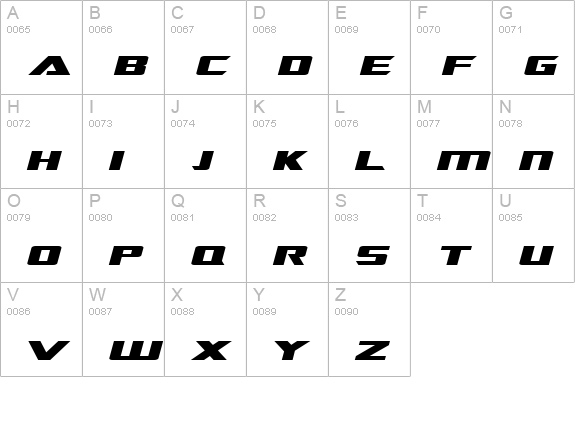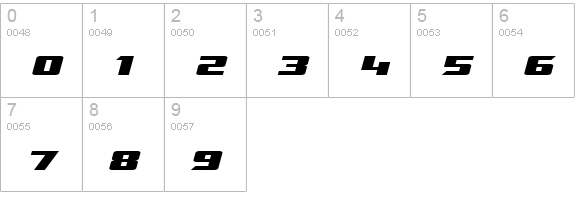
TransRobotics Extended Italic is a distinctive, extended-width, italic variant in the TransRobotics typeface family \xE2\x80\x94 well suited to design and typography projects.
Introducing TransRobotics Extended Italic, a captivating and futuristic font that pushes the boundaries of typographic design. With its sleek and dynamic letterforms, this font exudes a sense of technological advancement and innovation. Every curve and stroke in TransRobotics Extended Italic is meticulously crafted to create a harmonious balance between elegance and modernity. Designed with versatility in mind, TransRobotics Extended Italic is perfect for a wide range of creative projects. Whether you're designing a sci-fi movie poster, a cutting-edge website, or a tech-themed logo, this font will instantly add a touch of sophistication and excitement to your work. One of the most remarkable features of TransRobotics Extended Italic is that it is freely available to download at FontsMarket.com. This means that you can enhance your design projects with this remarkable font without any financial constraints. Embrace the power of TransRobotics Extended Italic and let your creativity soar to new heights. With its extended character set, TransRobotics Extended Italic supports multiple languages, allowing you to communicate your message effectively across different cultures and regions. The font's bold and italic styles further enhance its versatility, giving you the freedom to experiment and create unique typographic compositions. TransRobotics Extended Italic is not just a font; it's a statement. It represents the cutting edge of design and the limitless possibilities of technology. So, why settle for ordinary when you can elevate your designs with TransRobotics Extended Italic? Download this captivating font for free at FontsMarket.com and let your imagination take flight.